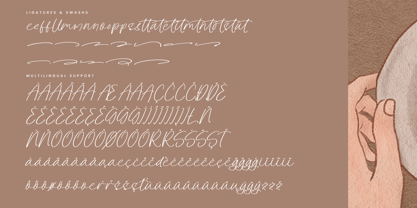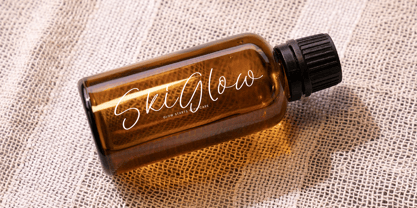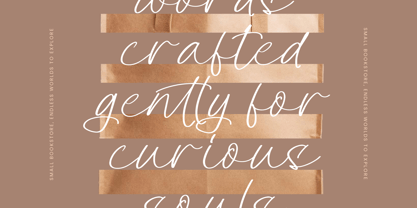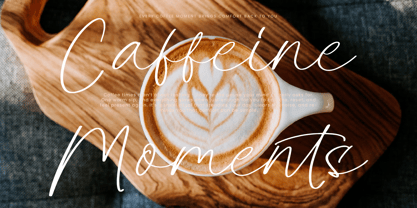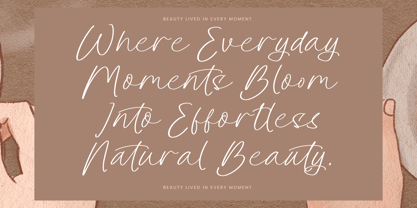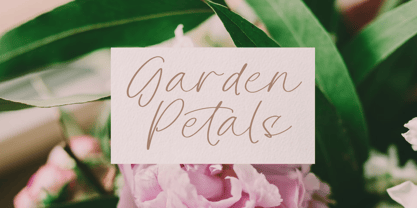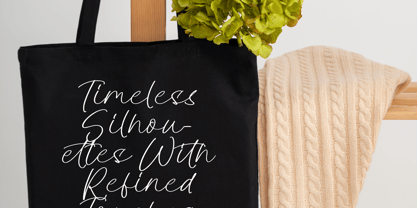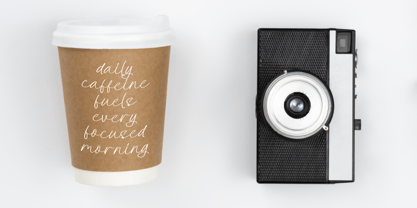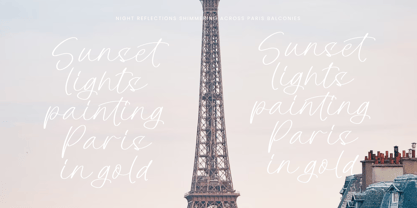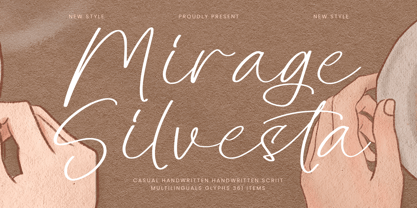
Mirage Silvesta
by Integritype
The Mirage Silvesta Font Family was designed by Ranndy Rizky Febrian and published by Integritype. Mirage Silvesta contains 2 styles and family package options. More about this family
Mirage Silvesta is a stylish Casual Handwritten Script font from Integritype Studio, ideal for a wide range of creative projects. This versatile typeface enhances logos, branding initiatives, homeware designs, product packaging, and more. Perfect for t-shirts, mugs, quotes, posters, shopping bags, book covers, business cards, invitation cards, greeting cards, labels, and photography watermarks. Whether for special events or luxury projects, Mirage Silvesta adds a touch of elegance and sophistication, making it an excellent choice for anyone seeking a premium aesthetic.